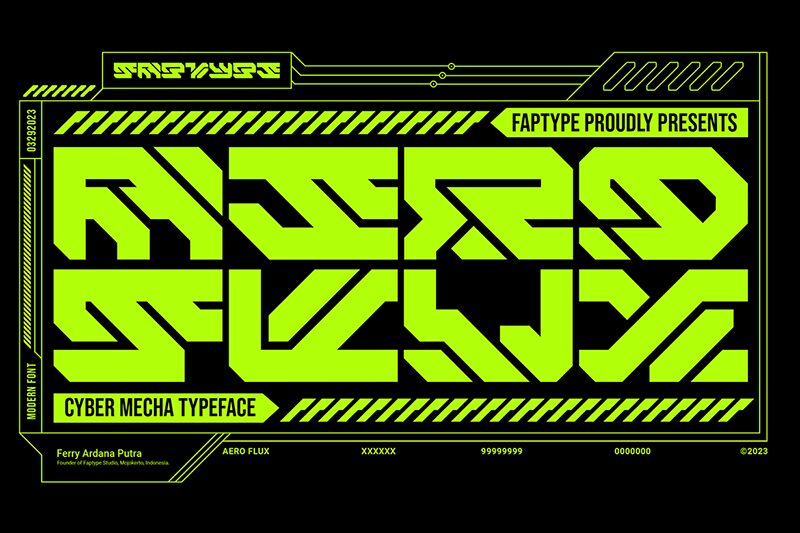
Aero Flux is a bold, futuristic font designed by Ferry Ardana Putra. With its unique set of expanded characters, it delivers the right dose of grunge and futuristic effect with every word.